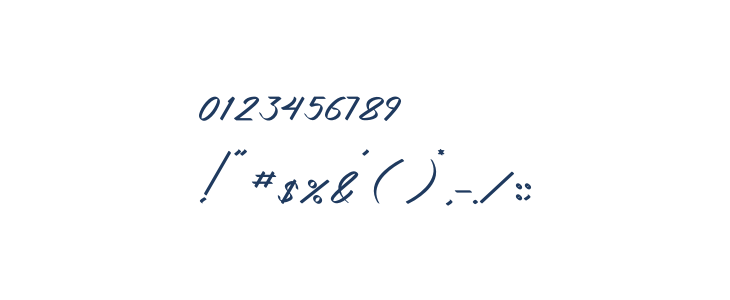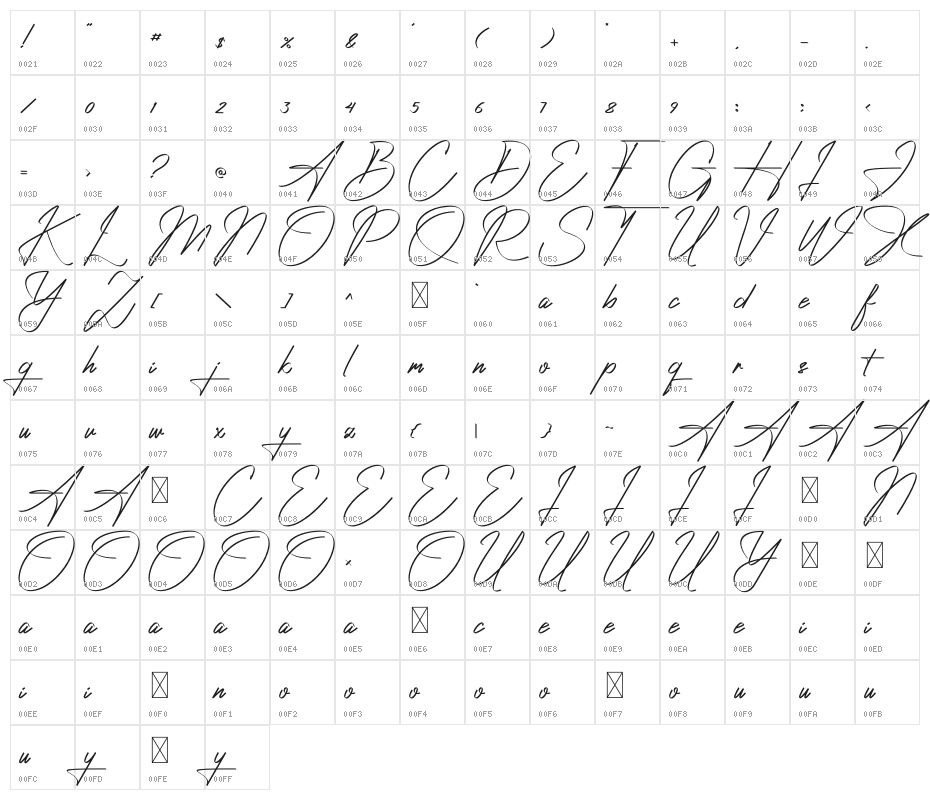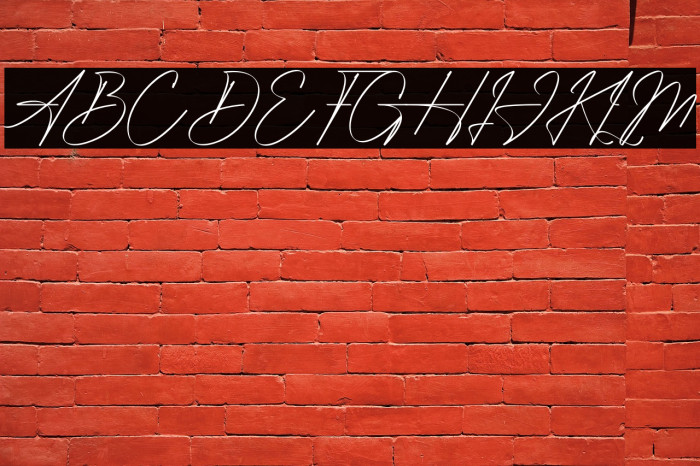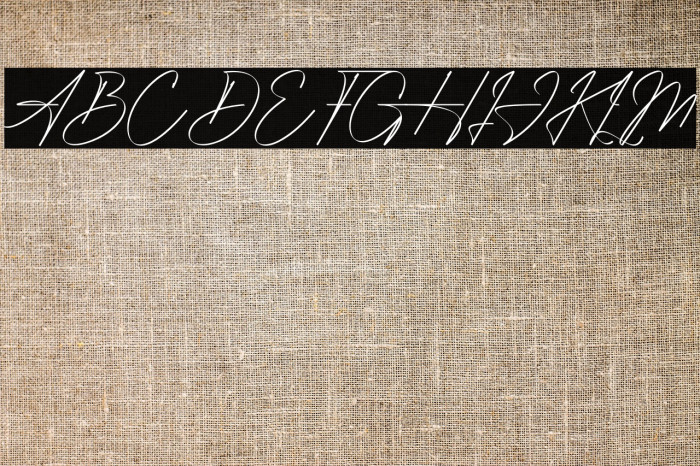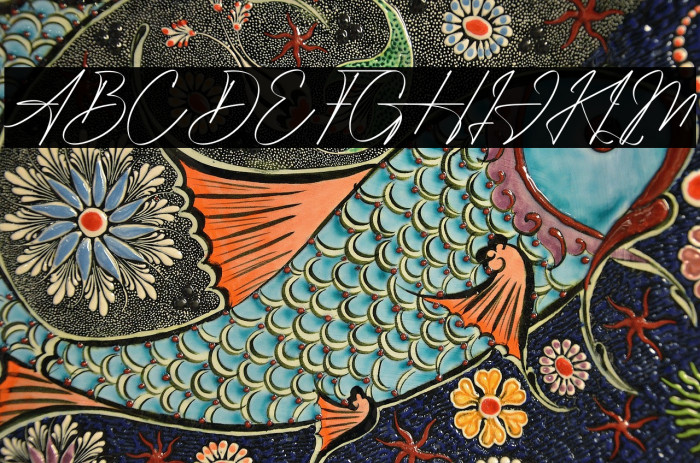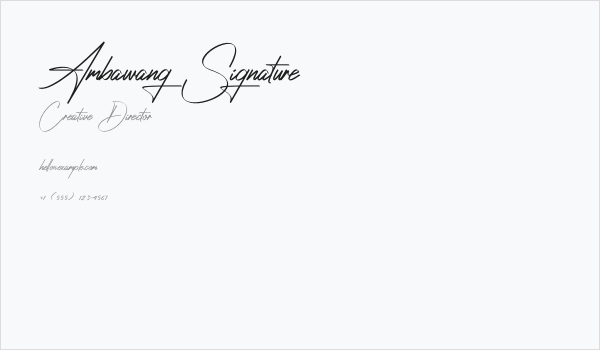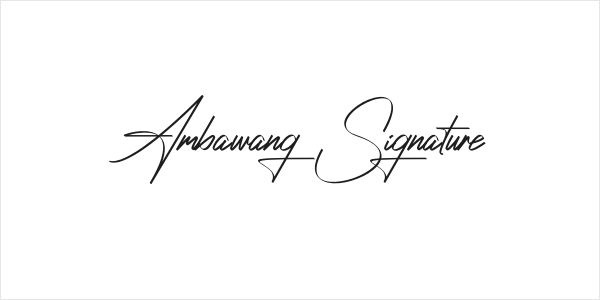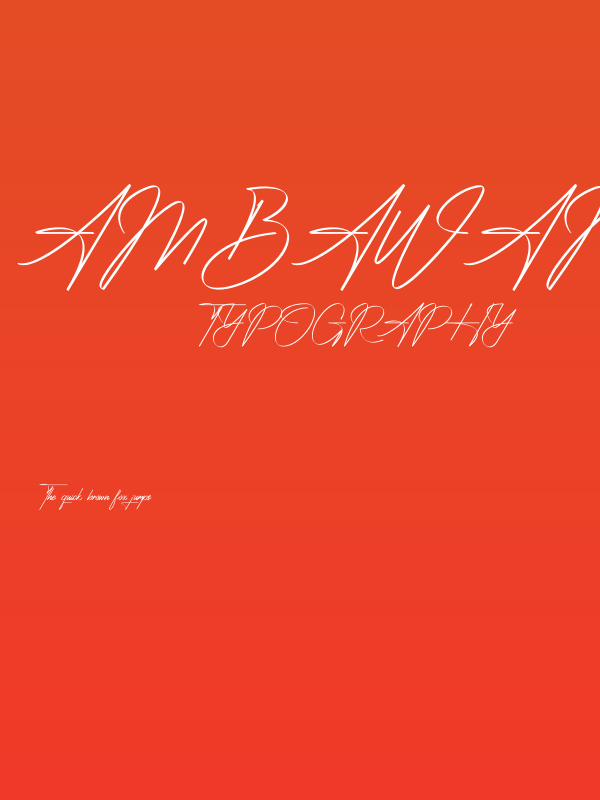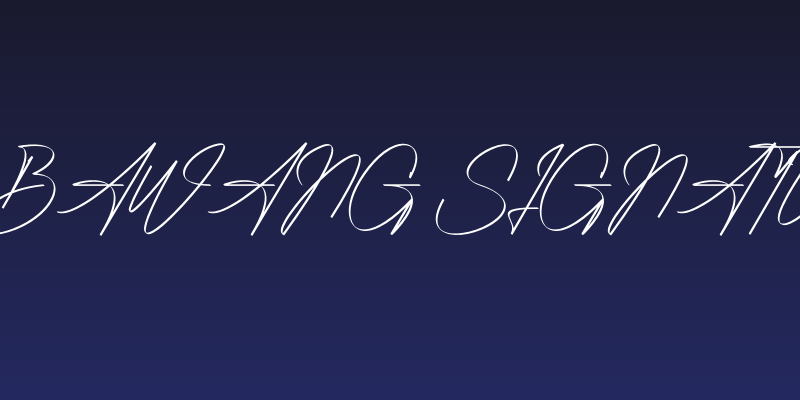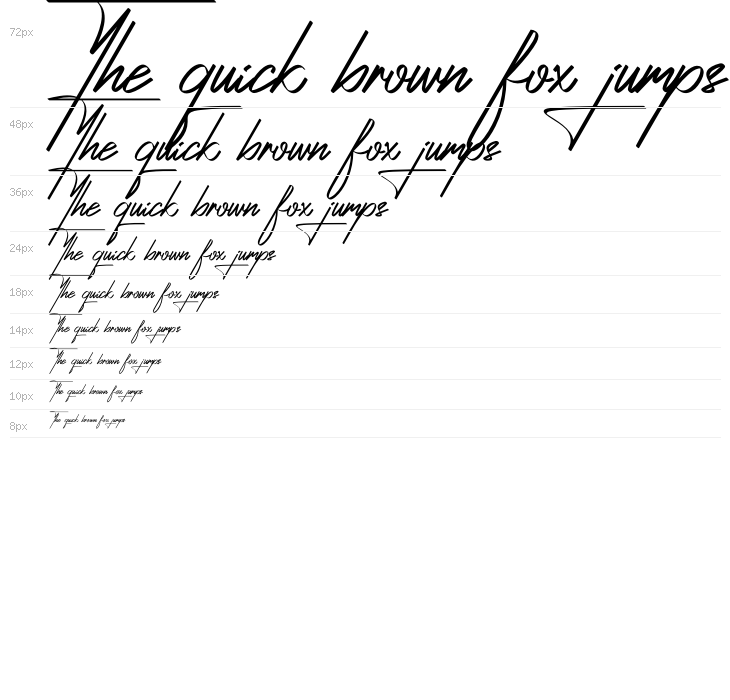
Ambawang Signature Font
Ambawang Signature Description
This font exudes elegance and sophistication with its flowing, cursive style. The characters are interconnected, creating a seamless and fluid appearance reminiscent of a personal signature. The uppercase letters are tall and graceful, while the lowercase letters maintain a consistent slant, enhancing the overall aesthetic. The numerals and special characters are designed with the same attention to detail, ensuring a cohesive look across all elements. This font is ideal for projects that require a touch of class and personalization.
| Proposed Projects | Ideal for wedding invitations, personal branding, luxury product packaging, and elegant logo designs. |